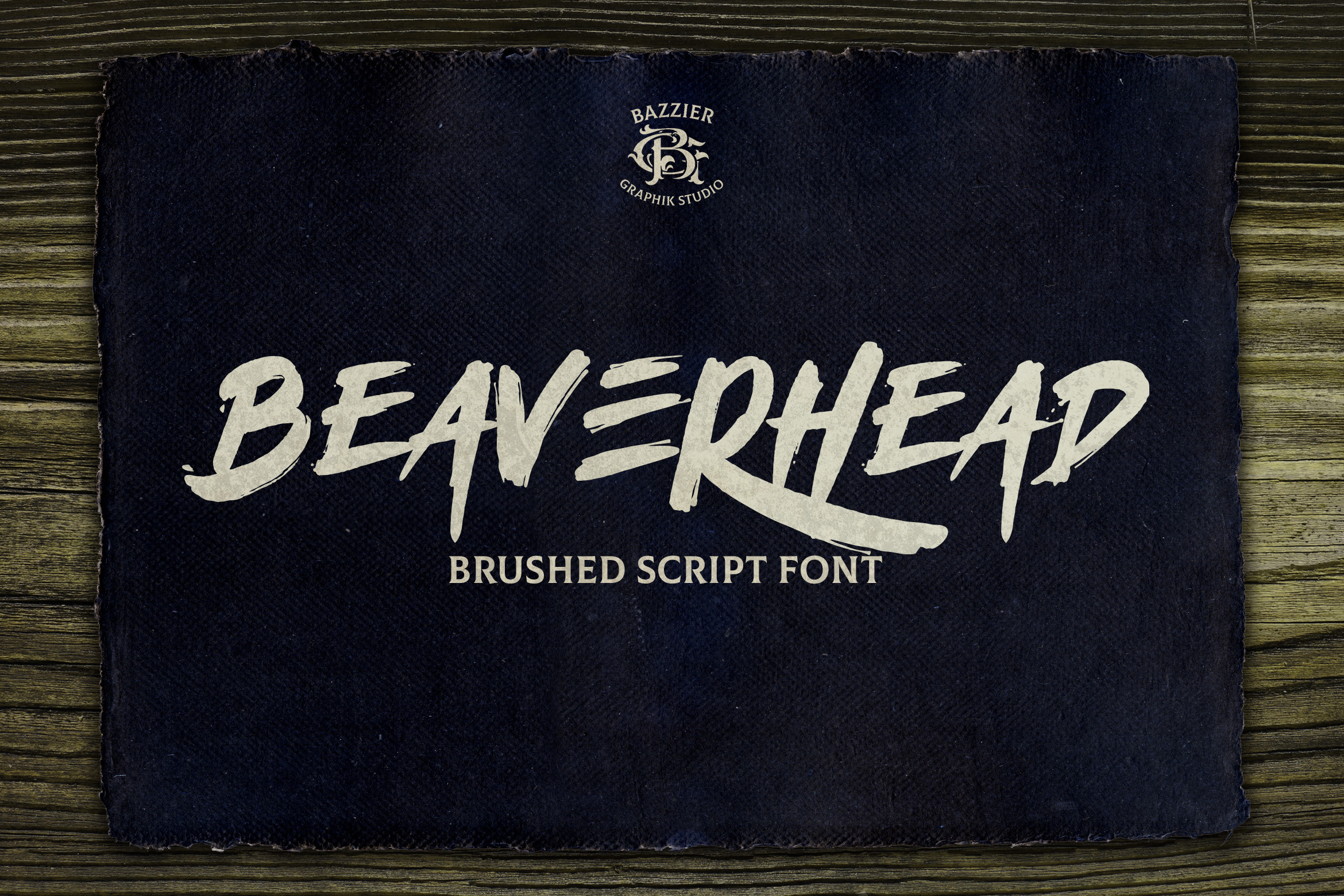
Beaverhead Script font
Beaverhead Script font was made from the handwriting brush, spontaneous yet beautiful. It's supporting Opentype features such as Alternative characters, Ligatures and Multilingual characters. Beaverhead font works perfectly for your logo project, print, design title or even standalone inscription design.